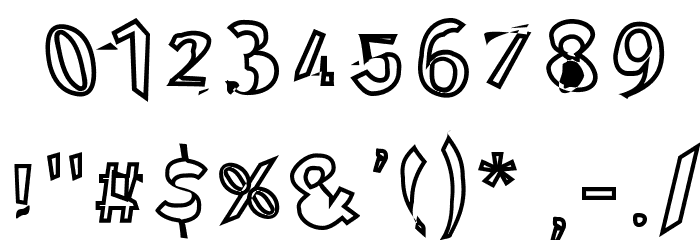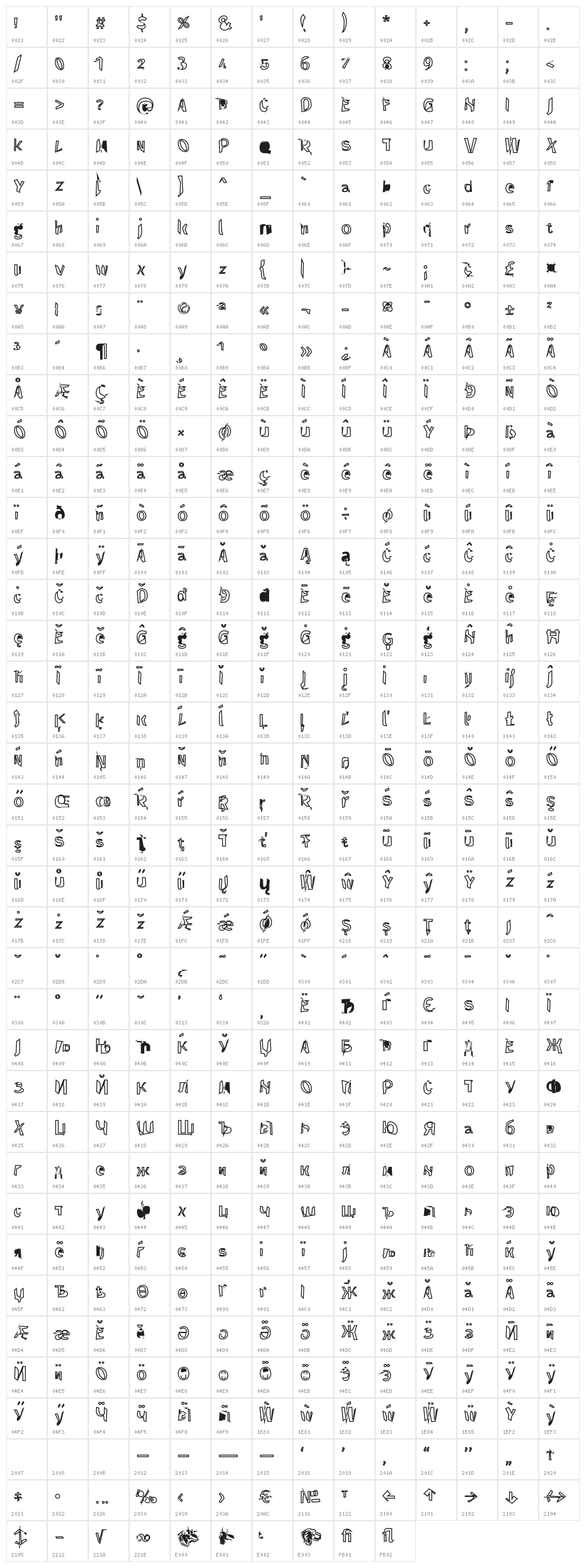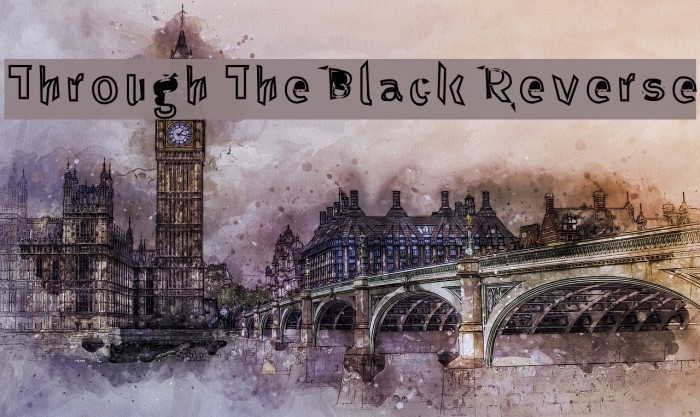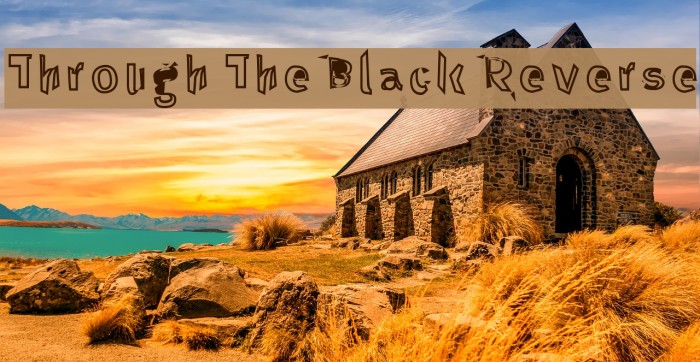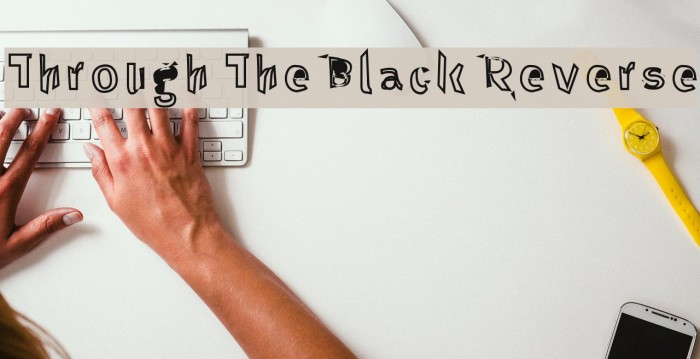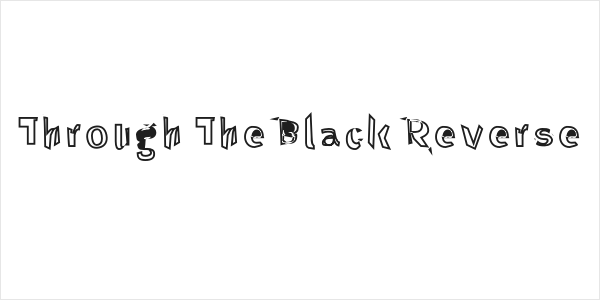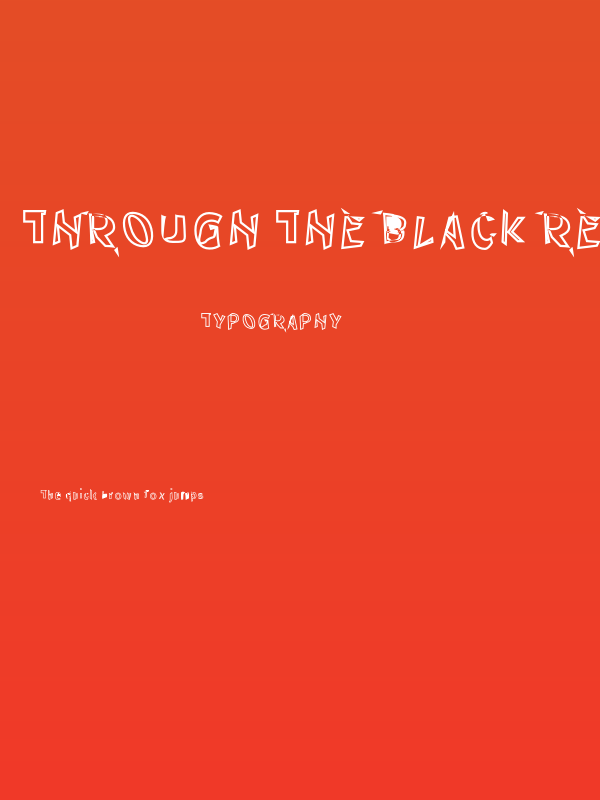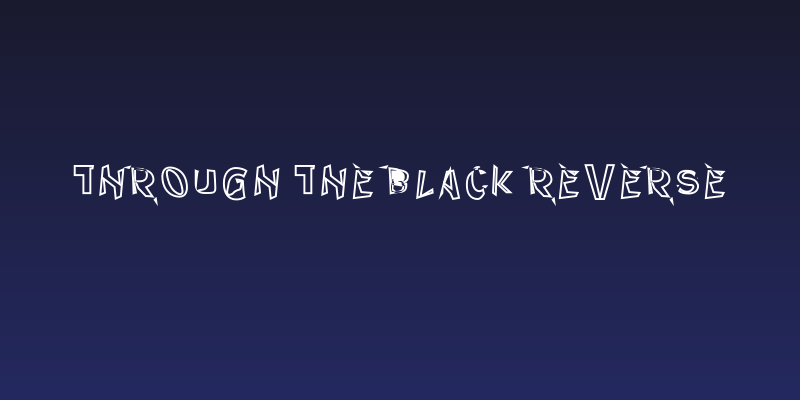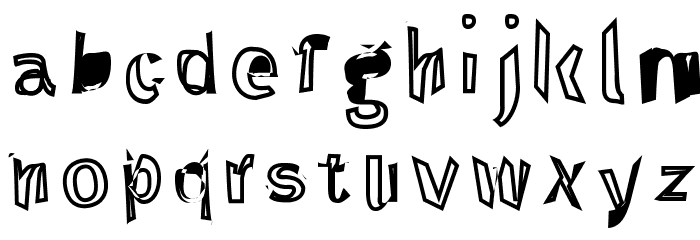
Through The Black Reverse Font
Through The Black Reverse Description
This font features a bold and edgy design with a distressed, fragmented appearance. Each character seems to be sliced or shattered, giving it a chaotic yet artistic look. The uppercase letters are particularly striking, with sharp angles and irregular shapes that create a sense of movement and energy. The lowercase letters maintain this fragmented style, though they are slightly more subdued. Numbers and special characters follow the same design principles, ensuring consistency across the font. This font is highly decorative and makes a strong visual impact, ideal for projects that require a bold statement.
| Proposed Projects | Ideal for album covers, posters, and edgy branding projects. |